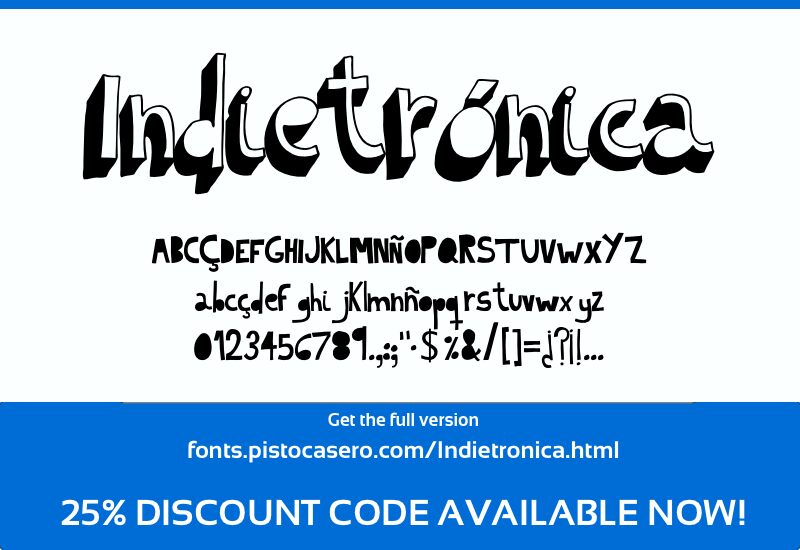
Indietronica Light by Pisto Casero is a free comic display font with tall, crowded letters and a lively hand-cut silhouette. Uneven stroke widths, blunt corners, and squeezed curves keep the lettering rough and animated, with small shifts in height that stop the line from feeling mechanical.
Independent record labels, streetwear brands, and casual food businesses could use its shapes for an offbeat identity. It also suits concert posters and youth-oriented packaging, especially when the design leans toward collage, photocopied art, or loose illustration. In those settings, the lettering can become part of the artwork itself, like a painted sign or cut paper rather than neutral type.
Indietronica Light